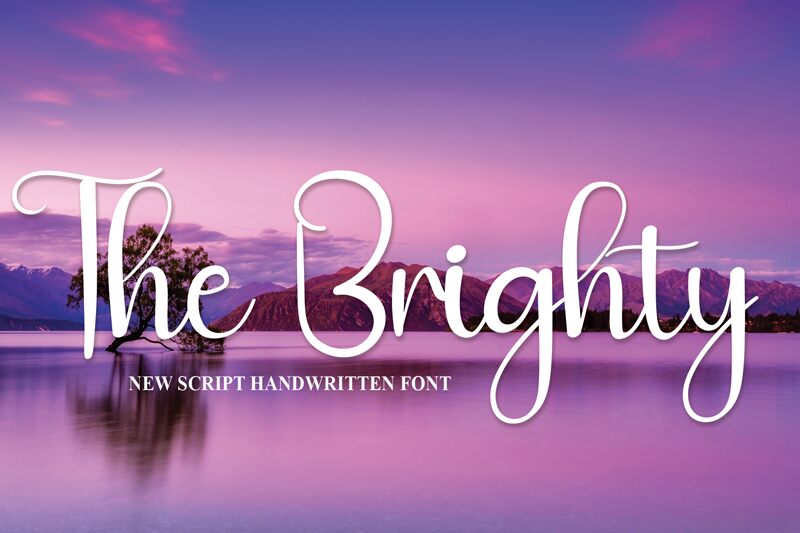
The Brighty
The Brighty font by Andi Moz is a free handwritten font that brings sophistication to every character and combines creativity and modernity to generate expressive typography. Its decorative touches instantly add an air of elegance to any item on which it appears, taking your project from concept to exceptional with just one click.
Curved lines and clean designs are finally available at your disposal for branding projects, crafts, logotypes and slogans, packaging designs, cards (wedding invitations), headlines and banners for magazines or blogs. The Brighty can also be used on social media pages where any online presence can thrive off its dashing appearances or applied as apparel items such as t-shirts.